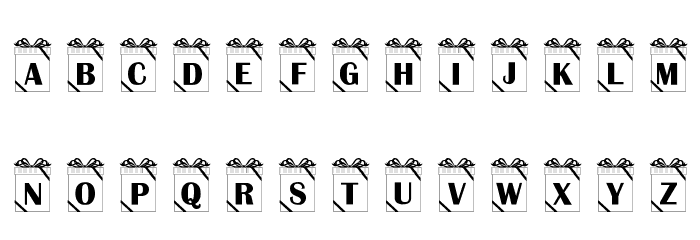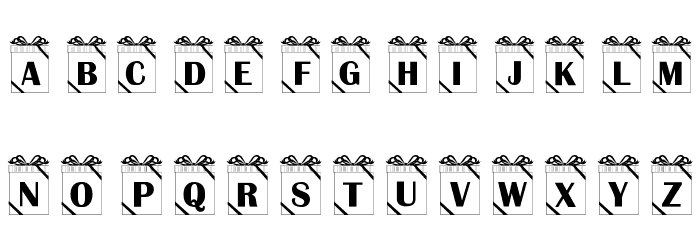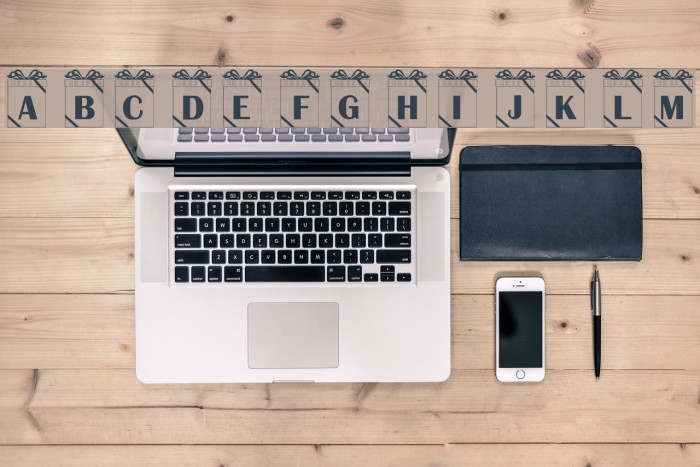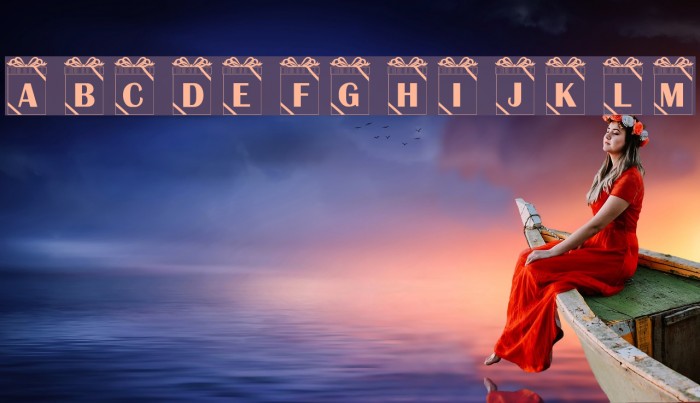
101! Gift Font
This font features each character enclosed within a gift box design, complete with a ribbon on top. The letters are bold and uppercase, offering a playful and festive appearance. The unique presentation makes it ideal for celebratory themes, adding a touch of whimsy and joy. The characters are evenly spaced within their boxes, ensuring readability while maintaining the decorative element. This font is perfect for projects that require a fun and engaging visual style, such as party invitations, holiday cards, or playful branding materials.
A decorative font with bold uppercase letters inside gift box designs.
- Proposed Projects: Ideal for party invitations, holiday cards, festive banners, and playful branding.